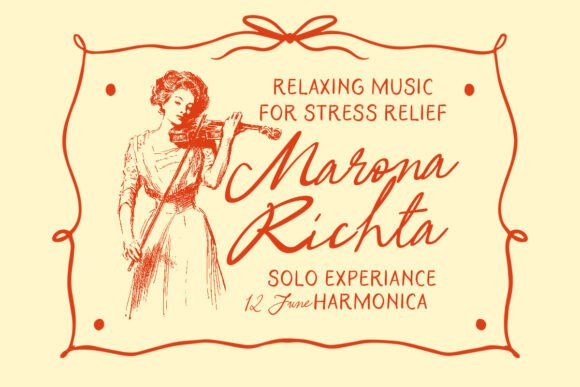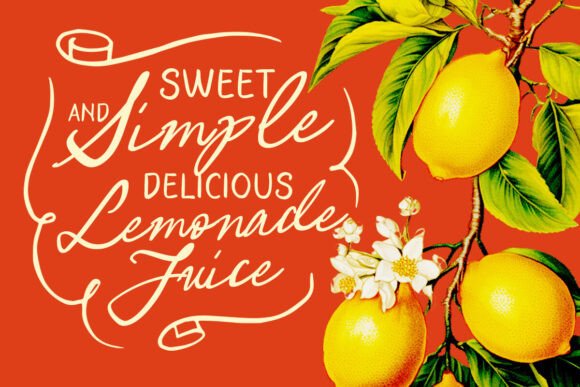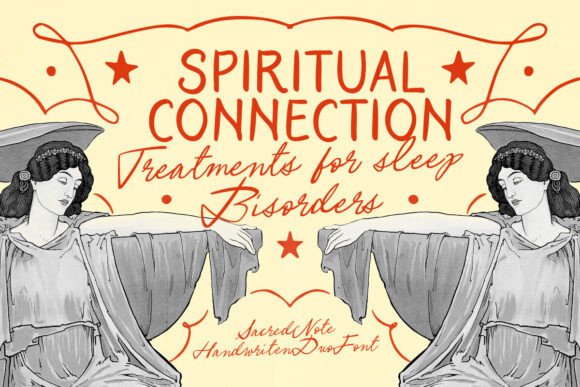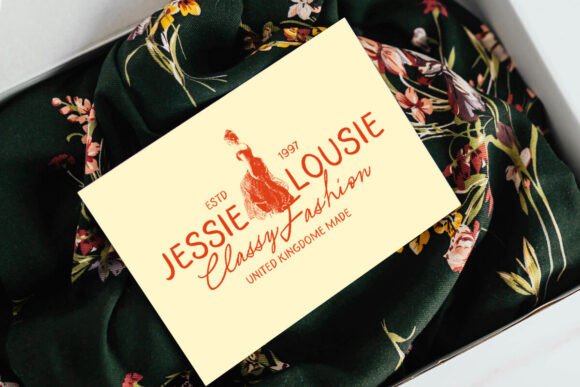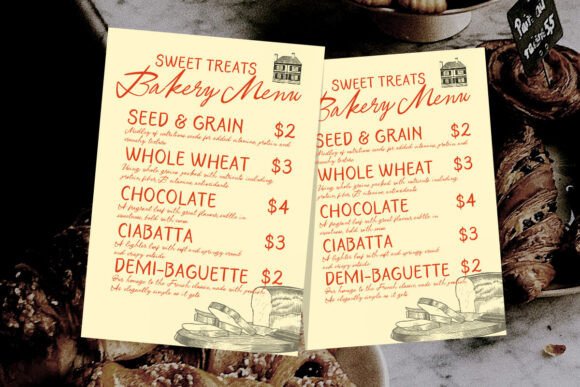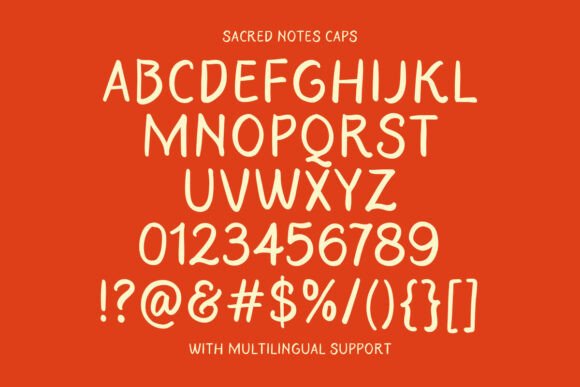
Introduction to Sacred Notes Duo Font
Sacred Notes is a charming handwritten font duo that combines a flowing script style with uppercase sans-serif caps, exuding a nostalgic, romantic feel.
The script typeface features elegant, sweeping letterforms that feel personal and vintage, while the all-caps complement provides a clean, playful contrast The overall aesthetic is delicate yet expressiveโ€”perfect for invitations, packaging, branding, greeting cards, and vintage-themed designs.